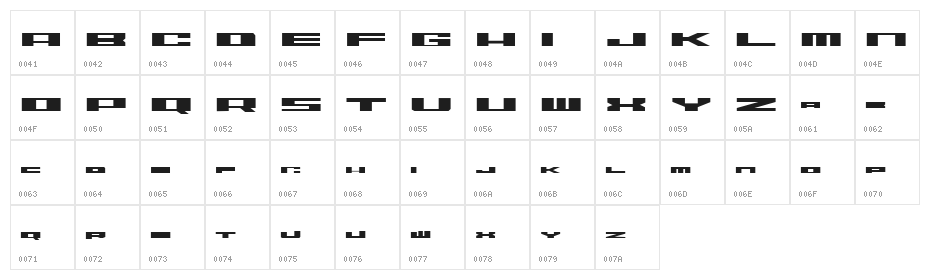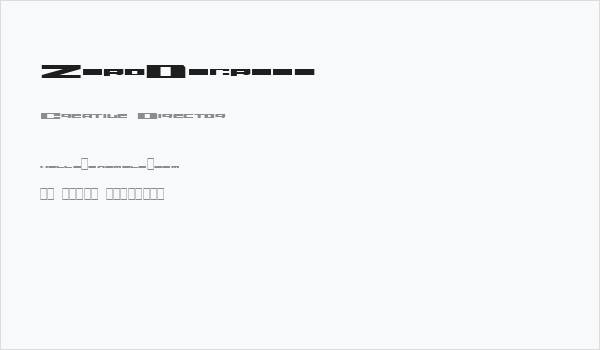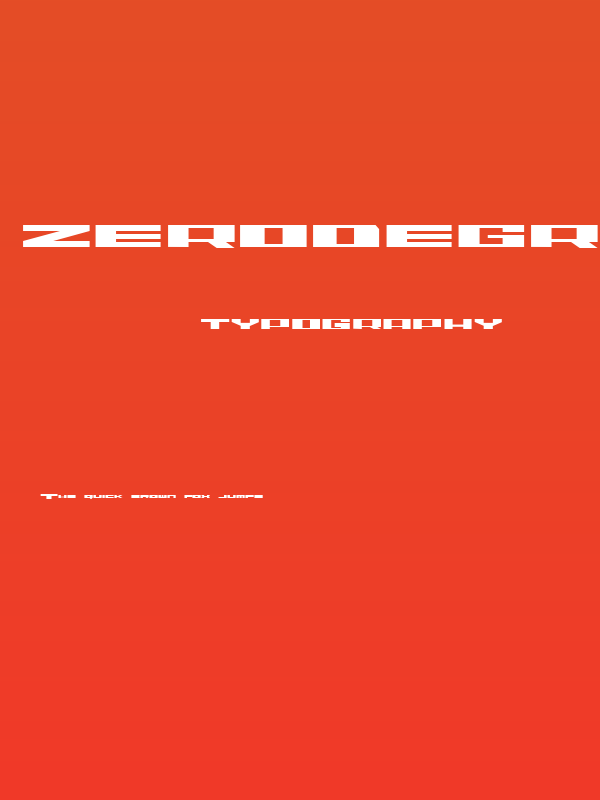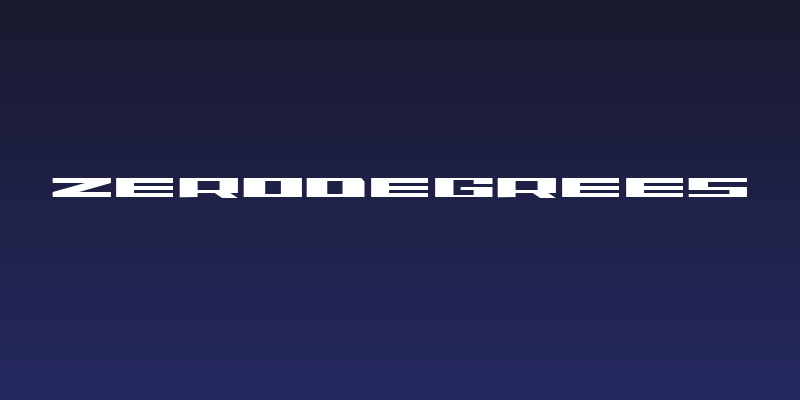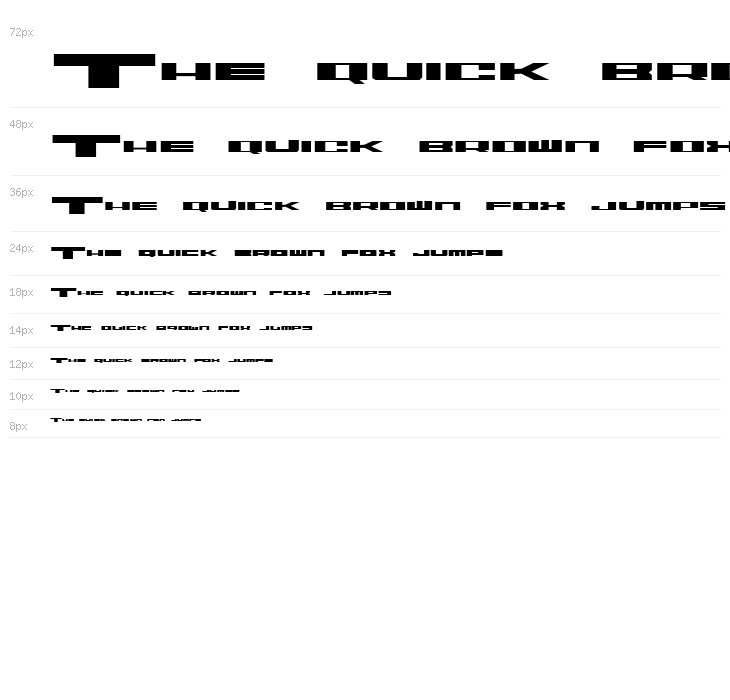
ZeroDegrees Font
ZeroDegrees Description
This font features a bold, geometric design with a futuristic and digital aesthetic. The characters are constructed with sharp angles and straight lines, creating a sense of precision and modernity. The uppercase letters are particularly striking, with a blocky appearance that emphasizes their strong presence. The lowercase letters maintain the same geometric style, ensuring consistency across the typeface. The numerals and special characters are designed to match the overall theme, making this font suitable for projects that require a modern and tech-savvy look.
| Proposed Projects | Ideal for technology branding, digital media, video game design, and futuristic posters. |